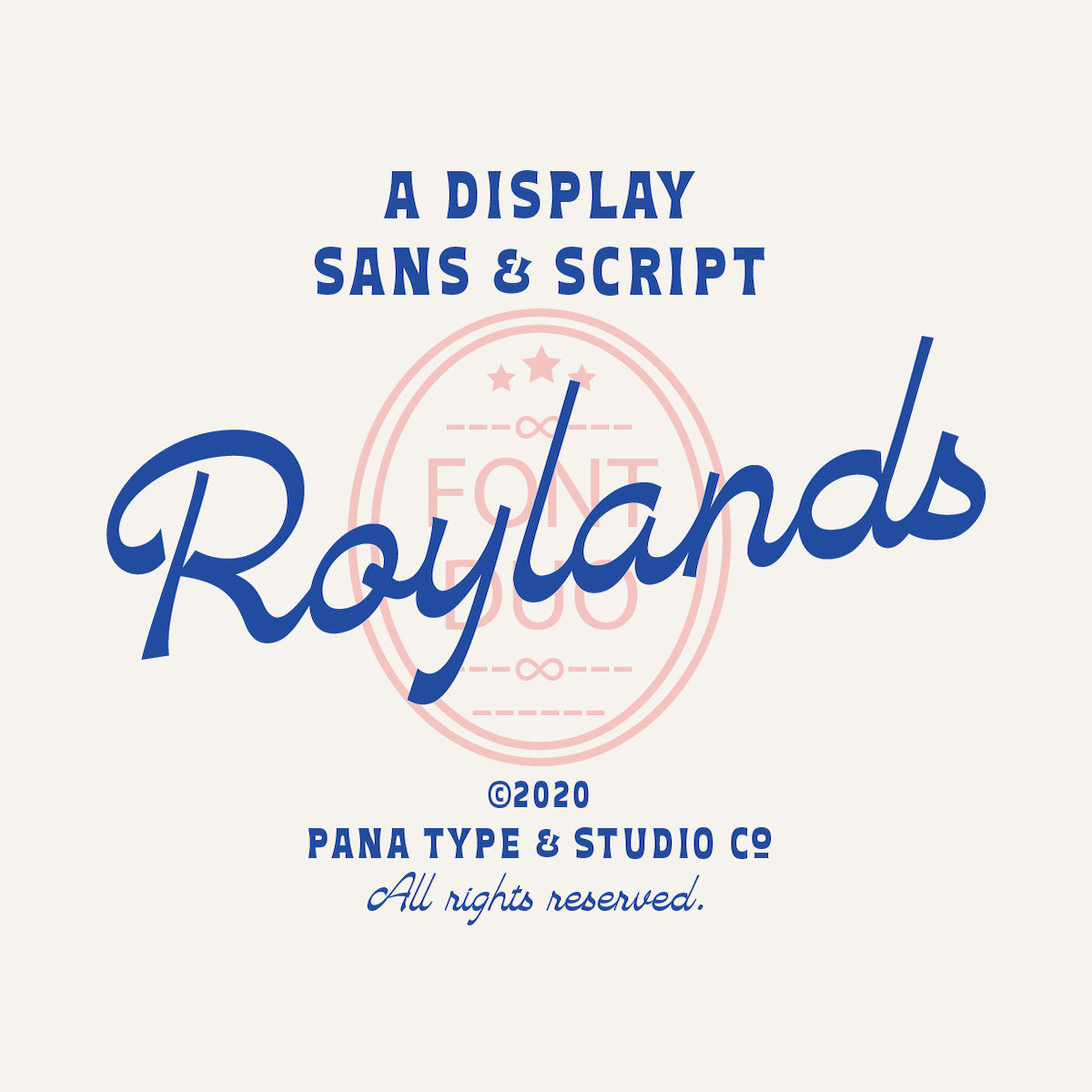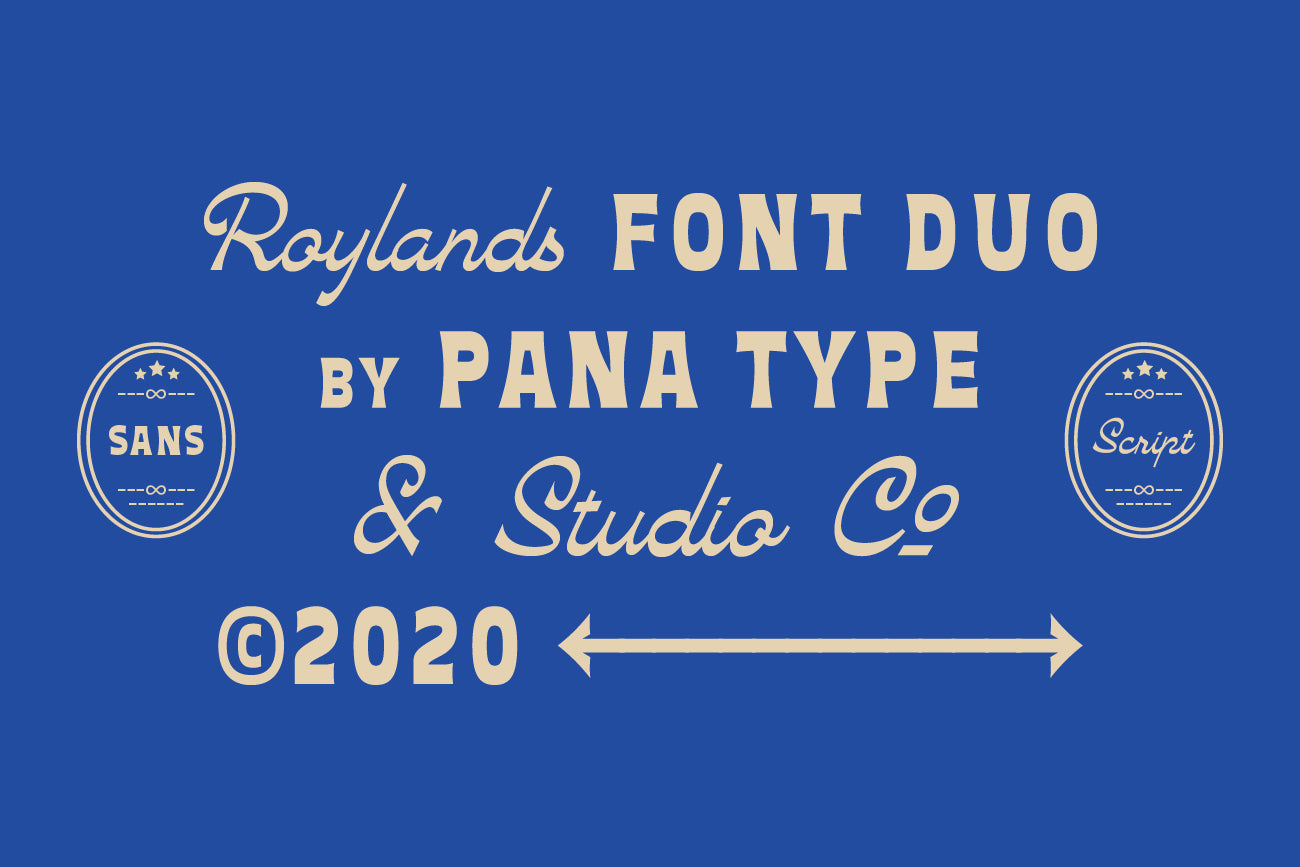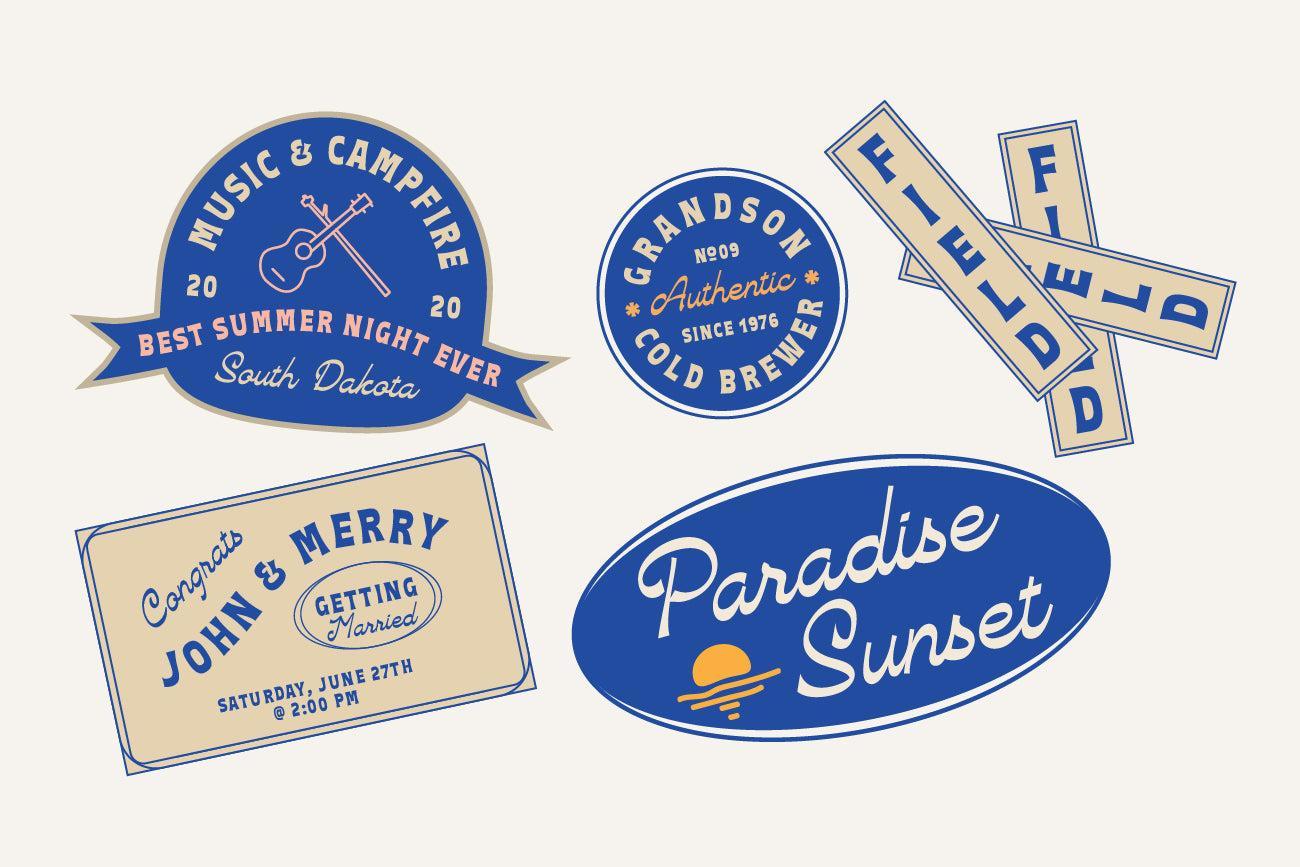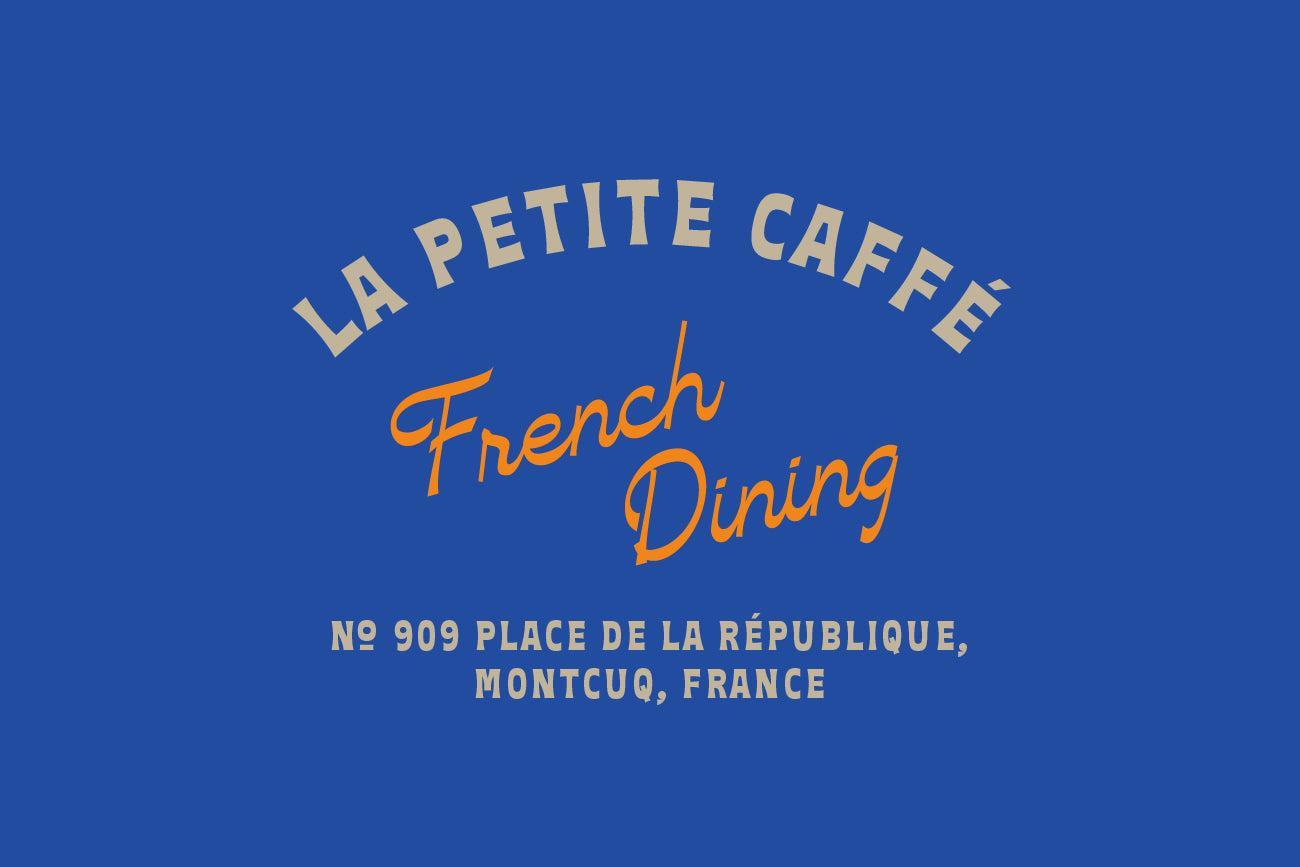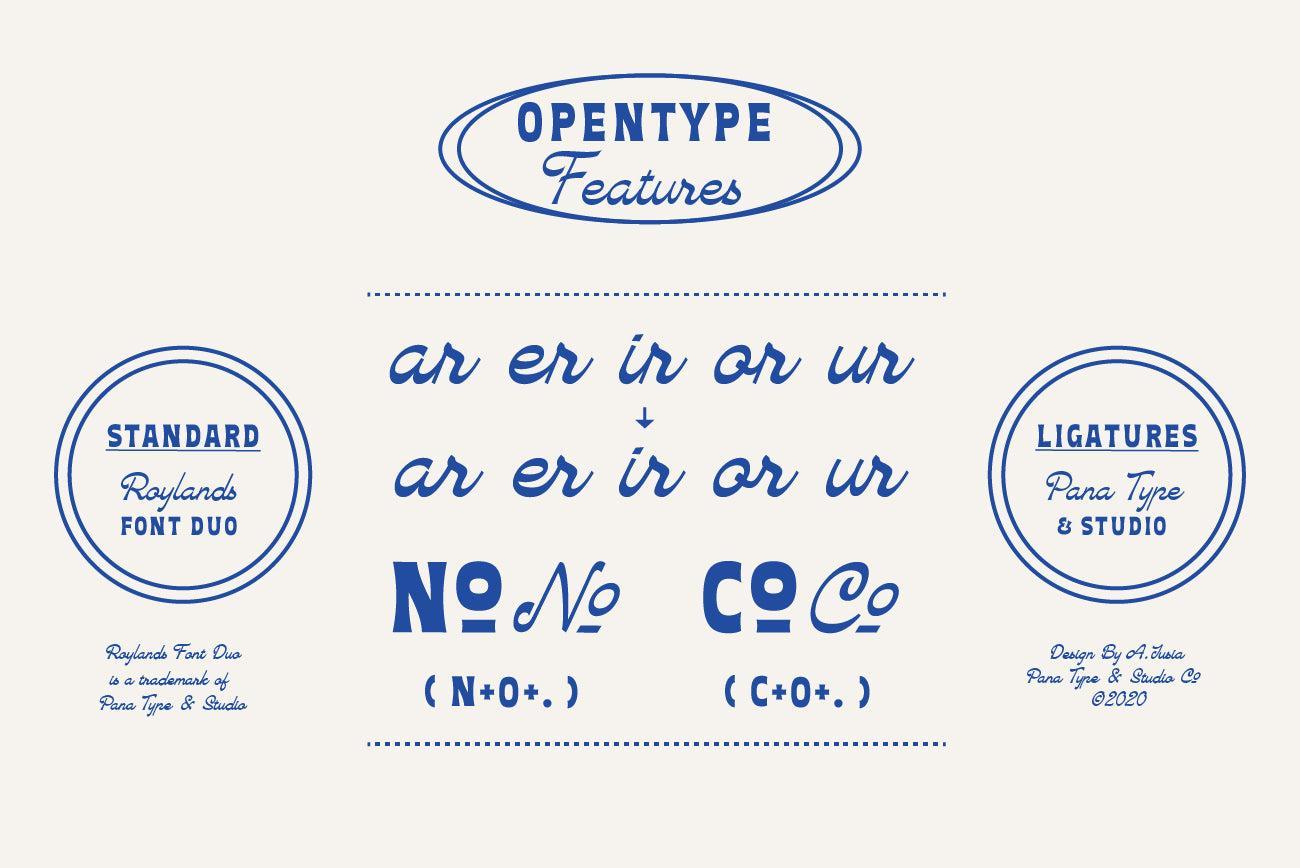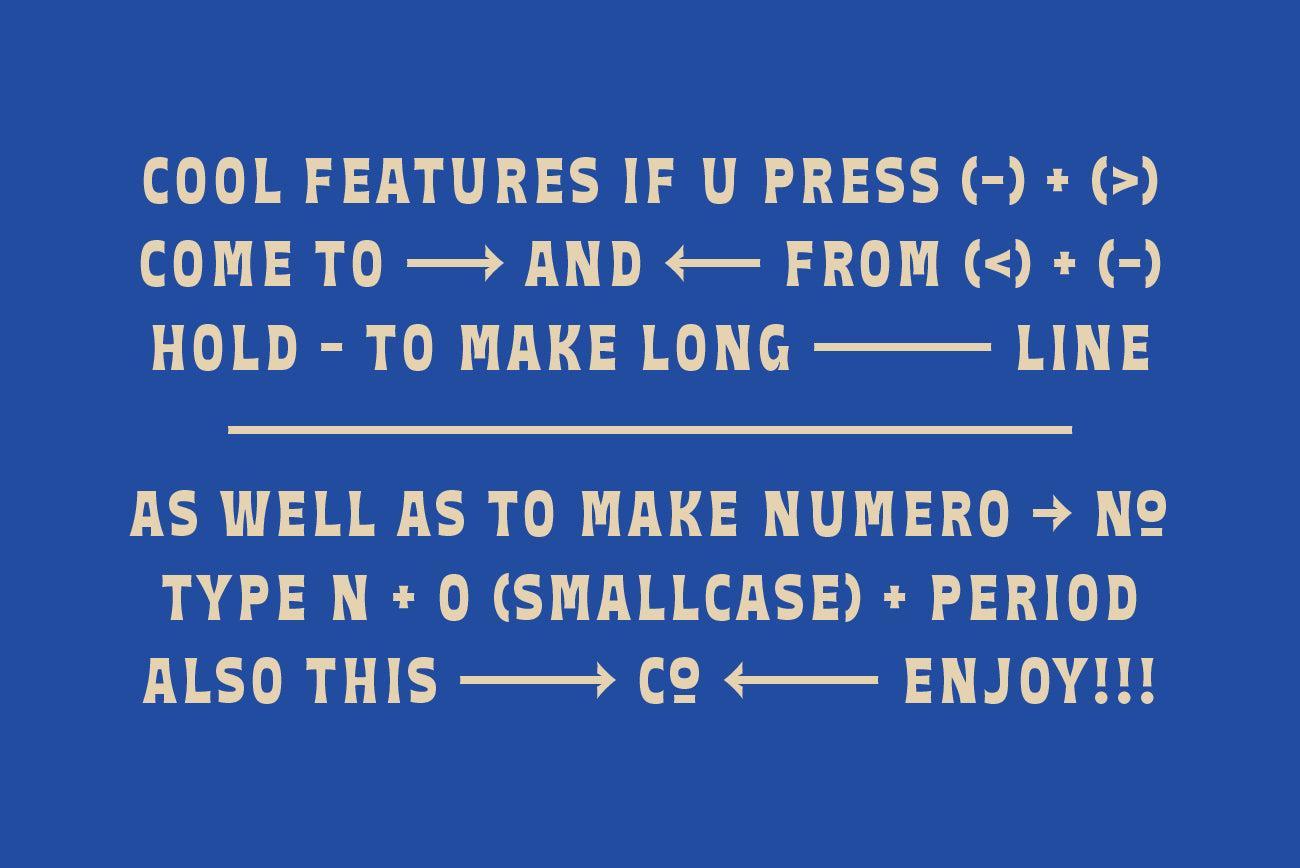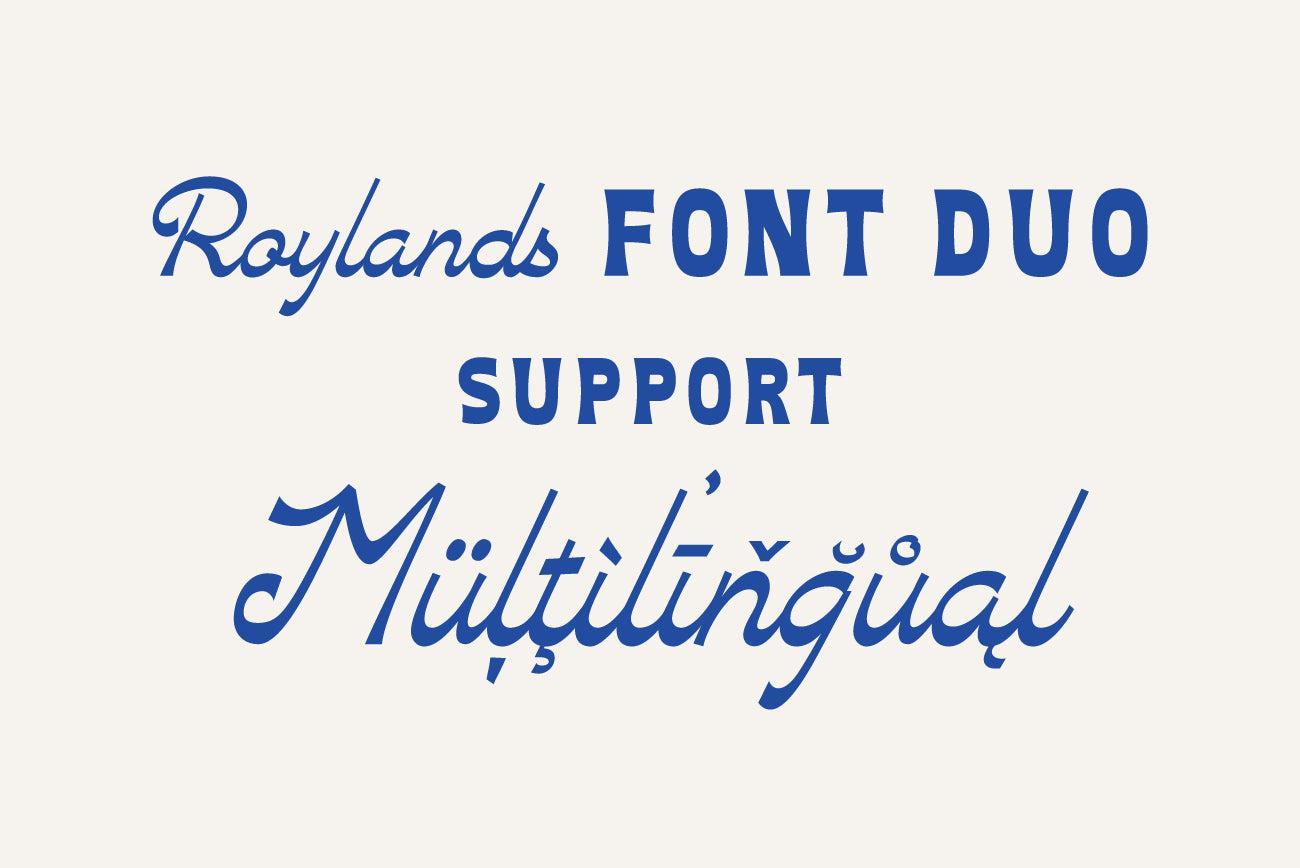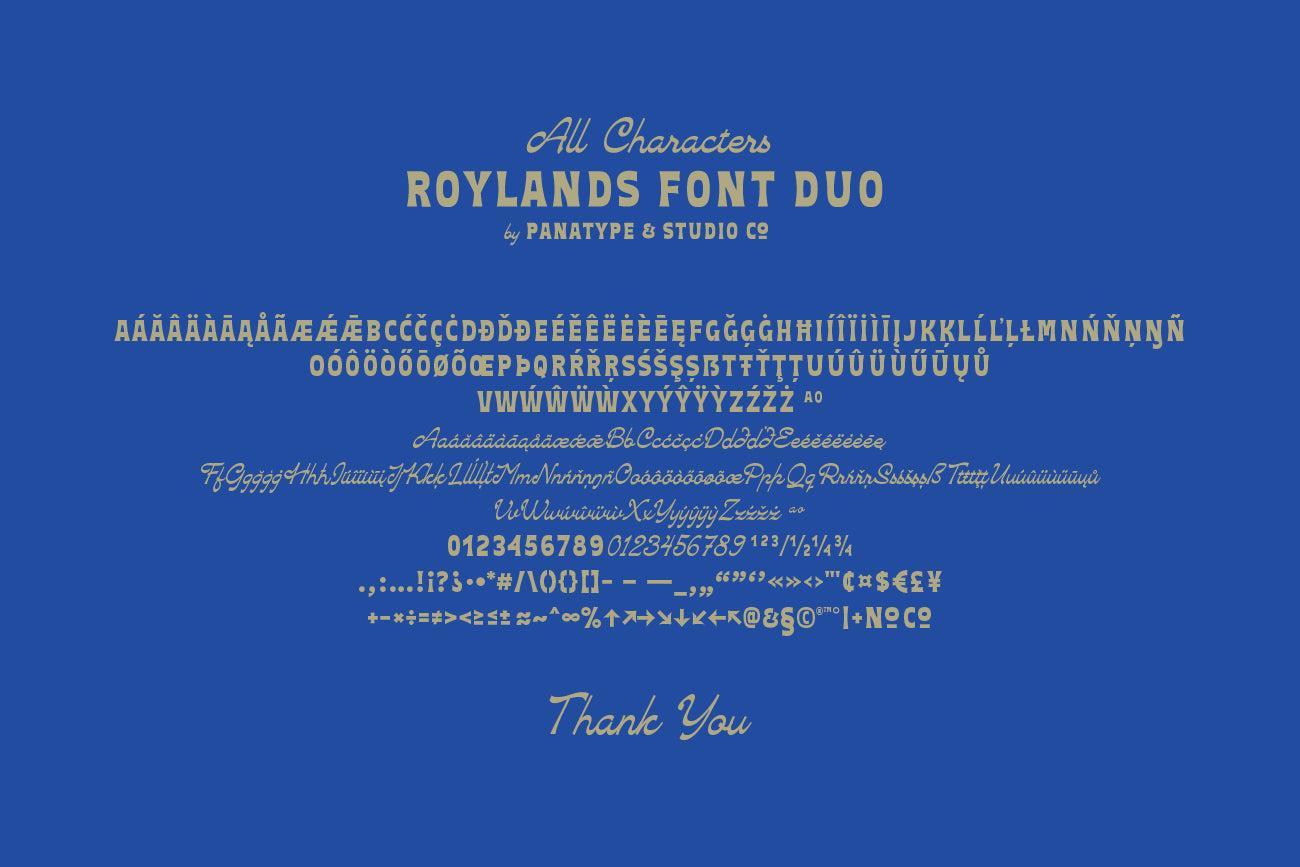
Roylands Font Duo
Roylands Font Duo is a matching pair of fonts inspired by vintage graphic design, featuring carefully crafted OpenType characteristics suitable for various graphic design applications. This font duo includes both a script font and a complementary typeface.